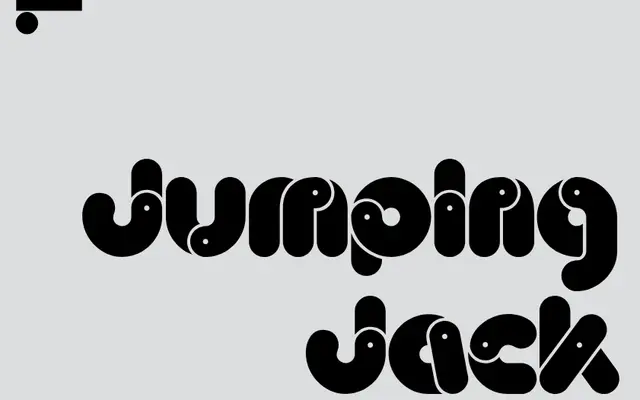
LL Jumping Jack
Lineto · Dieter Zembsch, Charles Grant, Sascha Bente · 2020
LL Jumping Jack specimen from Lineto
A modular display face originally designed for Mecanorma dry-transfer sheets in 1975, built from overlapping jointed components that mimic the articulation of a toy jumping jack.
Originally drawn by Dieter Zembsch and first published by Mecanorma in 1975, it won him Letraset's 1973 type design competition in an earlier form. Each letterform is constructed from overlapping segments with small circular holes representing joints, giving the face a mechanical, toy-like character that sits somewhere between abstract and legible. The digital version was first sketched by Charles Grant in 2011, then fully expanded and completed by Sascha Bente at Lineto in 2019, with the final release in 2020.
A geometric, modular display face built from overlapping jointed components resembling a jumping jack toy; purely display in intent with no aspiration toward body text use.